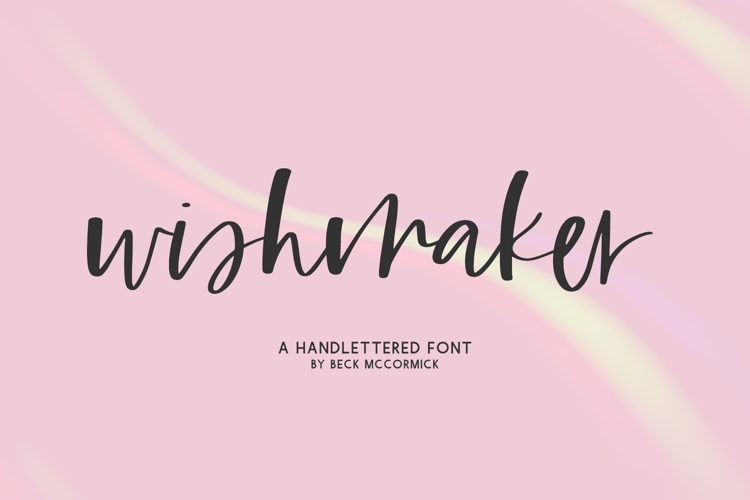
Wildmaker Script
Introducing Wishmaker, a handwritten modern calligraphy font. Wishmaker mimics handwriting, and is a little messy, and a little bouncy, perfect for trendy, modern projects.
Wishmaker is best for:
- feminine, crafty projects with your Cricut or Silhouette machine, or your SVG design business
- farmhouse decor and crafts
- digital planners & apps like Goodnotes
- website design + website accents, blog design
- feminine graphic tee shirt design & other apparel
Wishmaker includes:
- 26 alternates
- 27 ligatures - ar, as, bb, bl, cc, ch, dd, ee, er, es, ff, gg, gh, is, it, ll, mm, nn, oo, or, os, pp, rr, ss, tt, ur, us